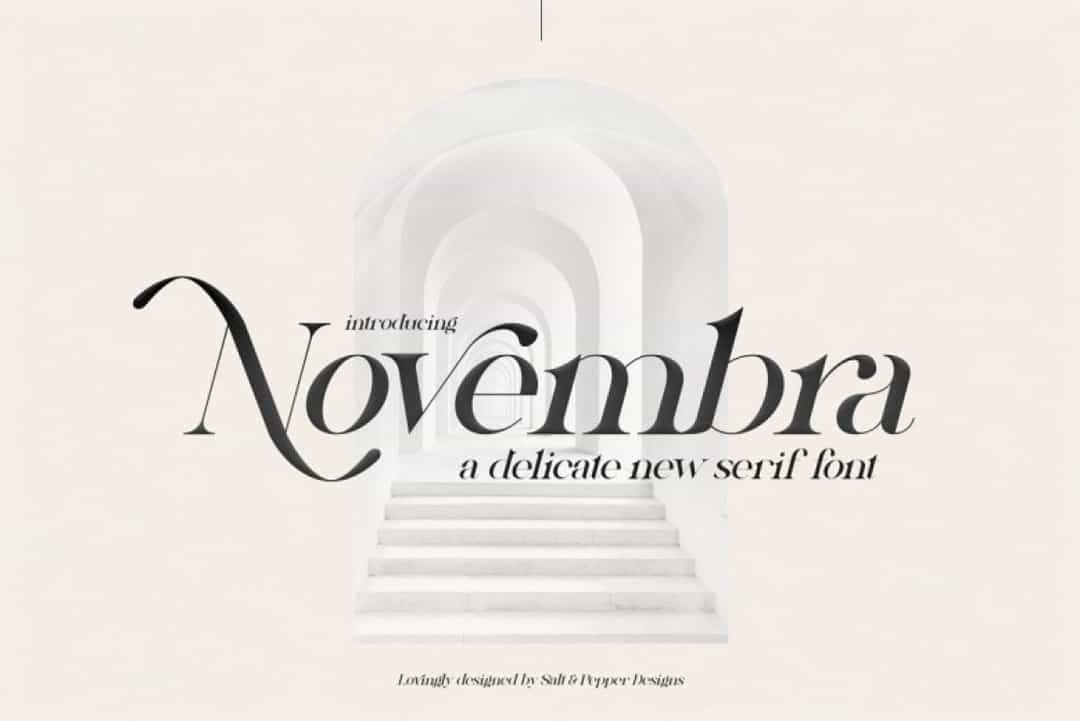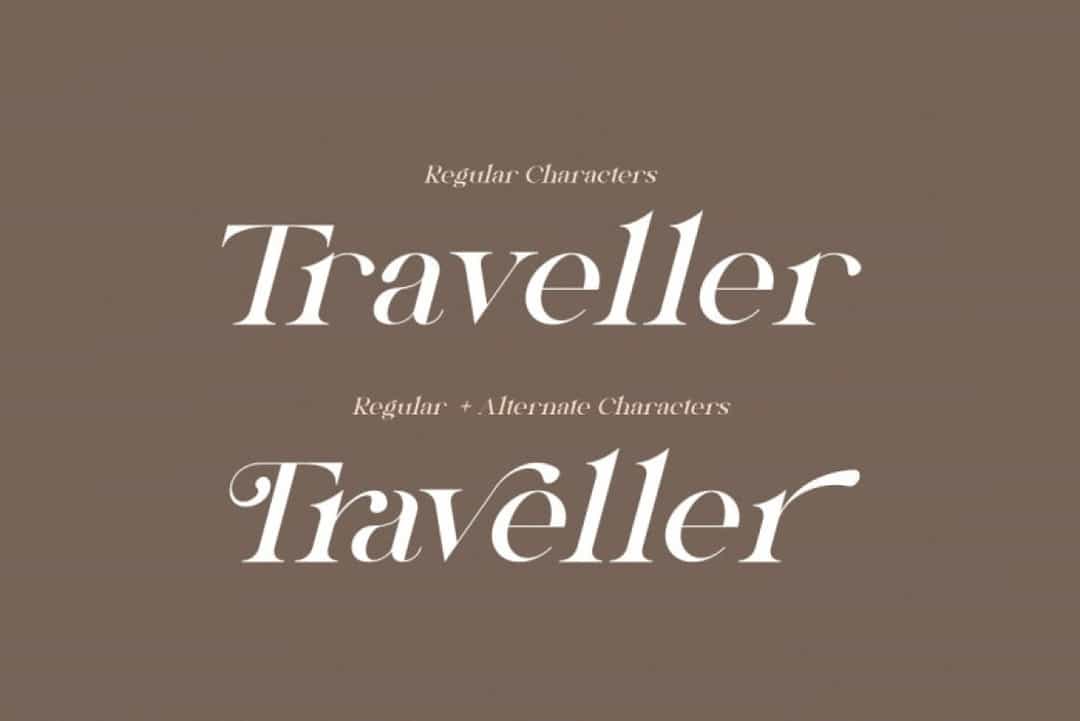
Novembra is an elegant serif typeface from Salt & Pepper Designs that adds luxurious sparkle to any design you create! PUA encoded, Novembra gives access to its full set of amazing glyphs and ligatures easily!